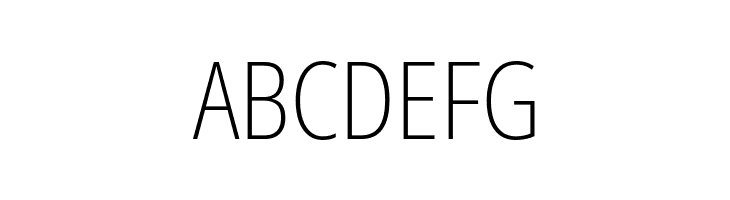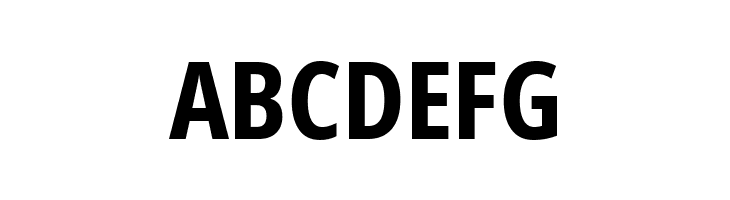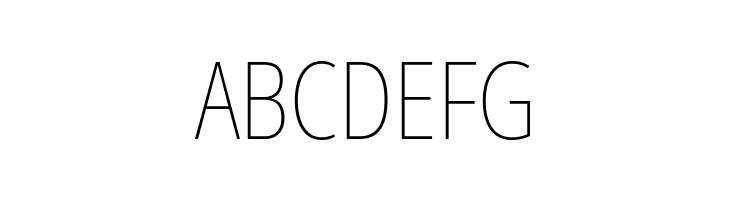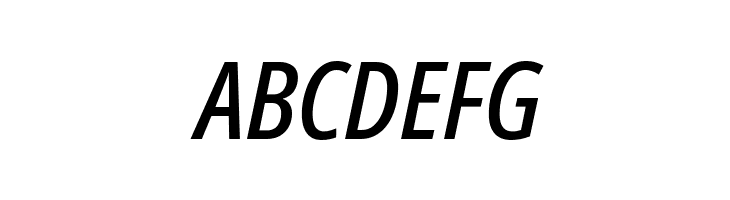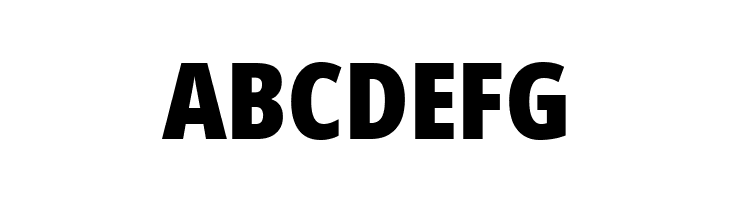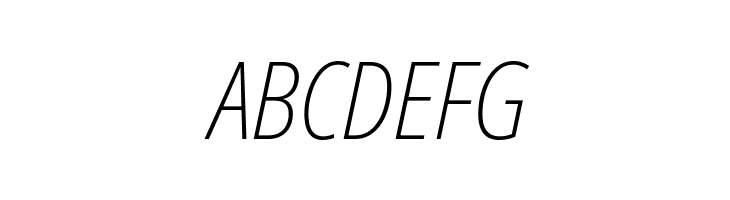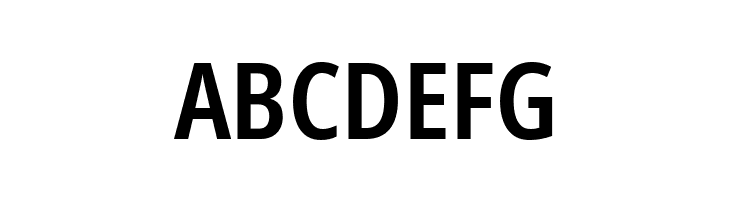
A modern, condensed sans-serif font with an extra light weight and minimal contrast.
A sleek, modern sans-serif font with a condensed and italicized style.
A bold, condensed sans-serif font with a modern and clean look.
A modern, thin, and condensed sans-serif font with clean lines.
A modern, sans-serif, condensed italic font with medium weight.
A bold, condensed sans-serif font with a modern and impactful style.
A sleek, modern sans-serif font with a light, italic, and condensed style.
A sleek, modern sans-serif font with a condensed, extra light, and italic style.
A modern, bold, and condensed sans-serif font with clean lines.
A modern, clean sans-serif font with excellent readability and balanced proportions.
A clean, modern sans-serif font with a thin weight and minimalistic design.
A modern, italic sans-serif font with clean lines and excellent readability.
A modern sans-serif font with a medium weight and italic style, offering a sleek and dynamic appearance.
A clean, modern sans-serif font with geometric letterforms.
A modern, bold sans-serif typeface with excellent readability and versatility.
A sleek, modern sans-serif font with a light, italic style and low contrast.
A modern, thin sans-serif font with an elegant italic slant.
A modern, light sans-serif font with clean lines and balanced spacing.
A sleek, thin, and italicized font with a modern and elegant style.
A bold, italic font with a modern and dynamic style.
A modern italic font with smooth curves and balanced proportions.
A bold, modern sans-serif font with clean lines and balanced proportions.
A sleek, light, and italic sans-serif font with a modern aesthetic.
A clean, minimalist extra-light font with consistent stroke width and modern appeal.
A clean, modern semi-bold typeface with excellent readability.
A modern, light sans-serif font with clean lines and balanced proportions.